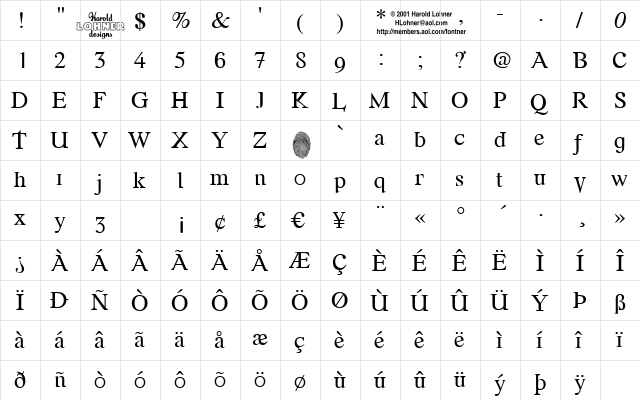
Font Error Regular
Design Context for Font Error Typeface
Font Error offers clean, dependable letterforms without strong stylistic allegiance, making it a practical choice for designers who need flexibility.
Pro Tip: Use Font Error in both headline and body roles to test its range before committing to a single application.